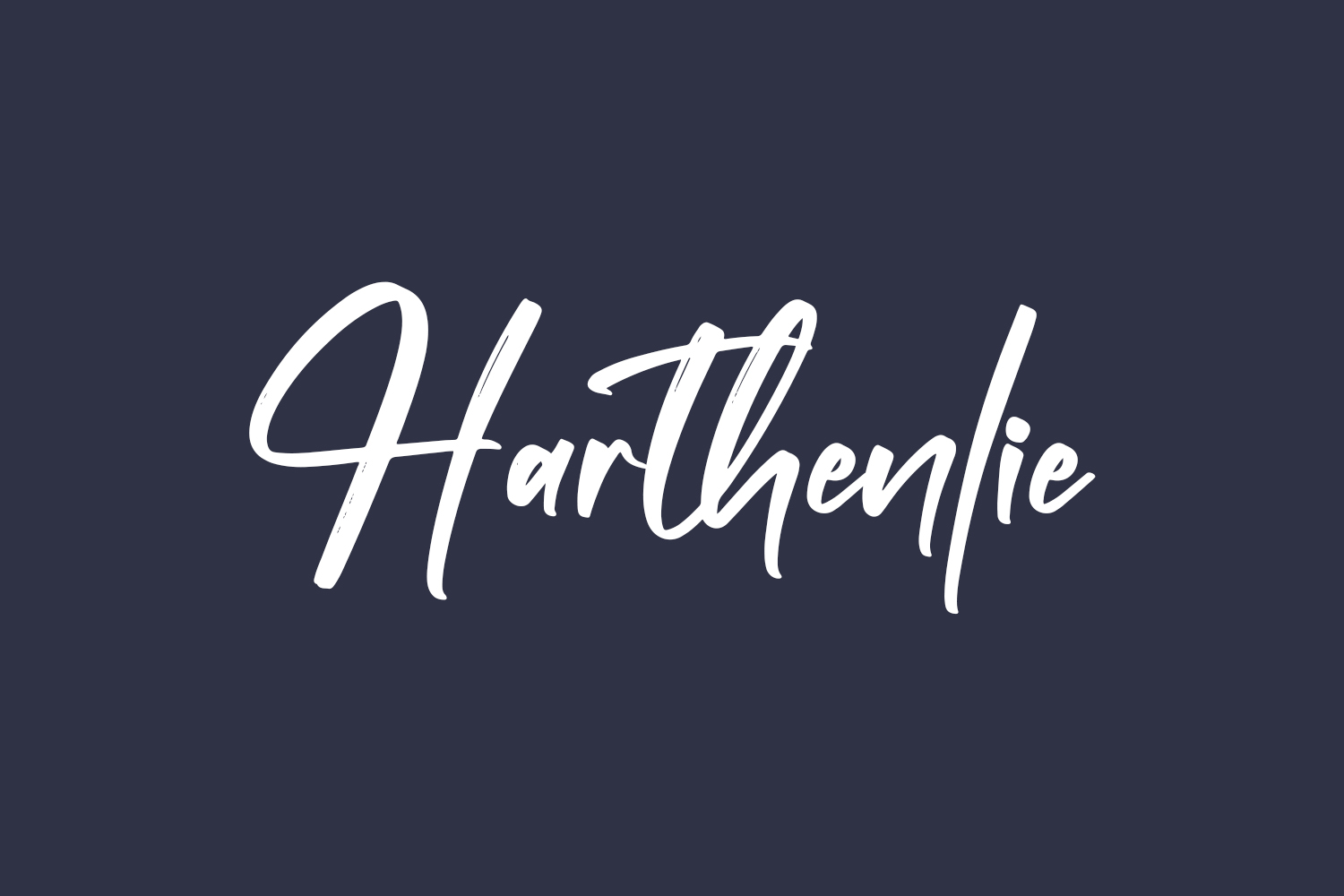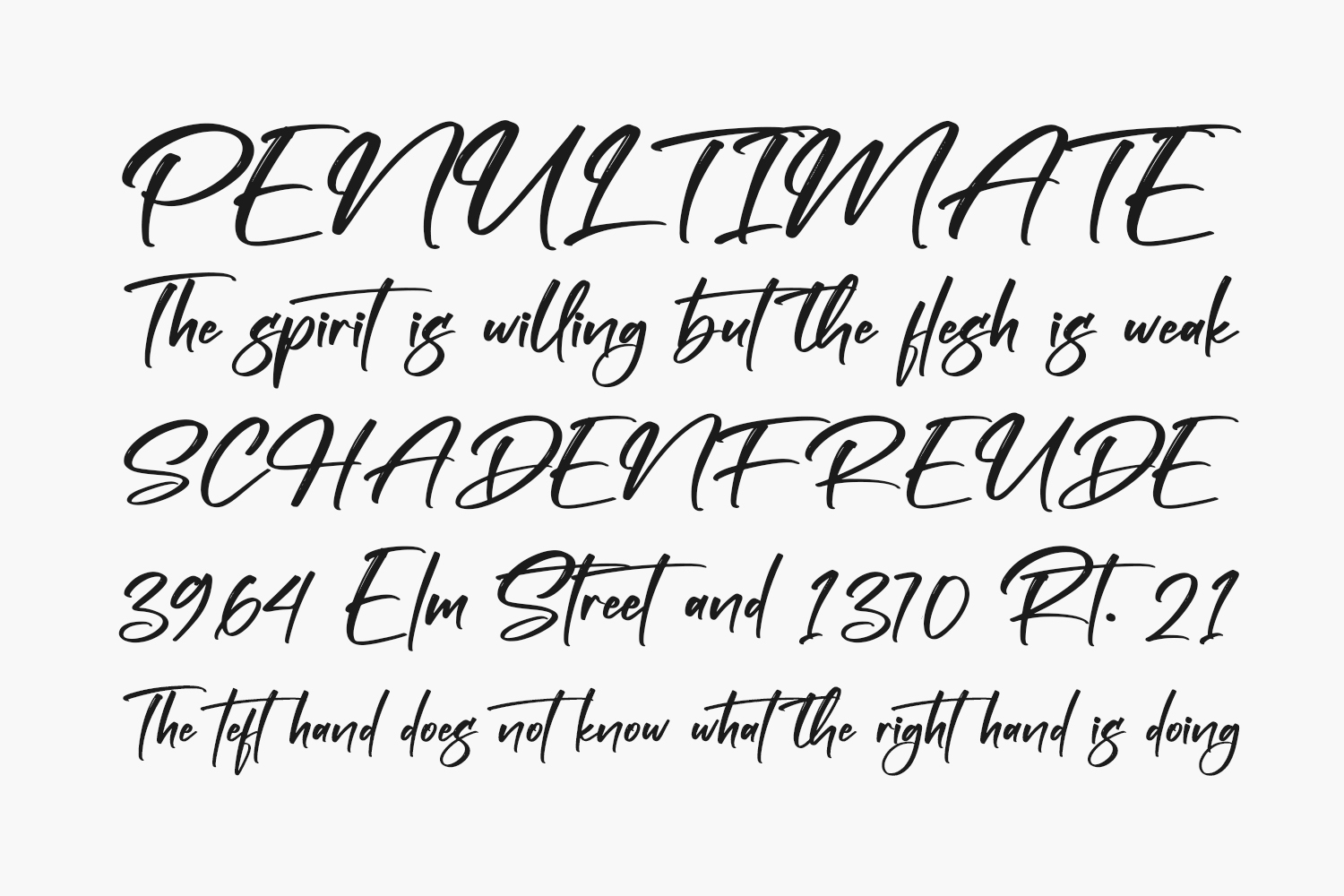
Introducing Harthenlie Free Font, a captivating script font that complements a myriad of projects. From logos and branding initiatives to homeware designs, product packaging, mugs, quotes, posters, shopping bags, t-shirts, book covers, name cards, invitation cards, greeting cards, labels, photography, watermarks, special events, and more—Harthenlie adds a touch of elegant script to all your creative endeavors. Elevate the aesthetic of your projects with the charming allure of Harthenlie font. Harthenlie Free Font is free for personal use only. Please purchase the full version for commercial use.